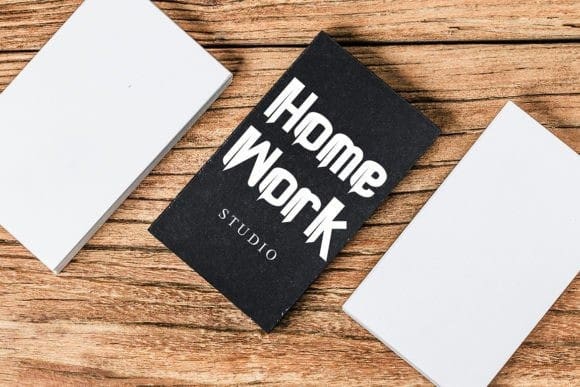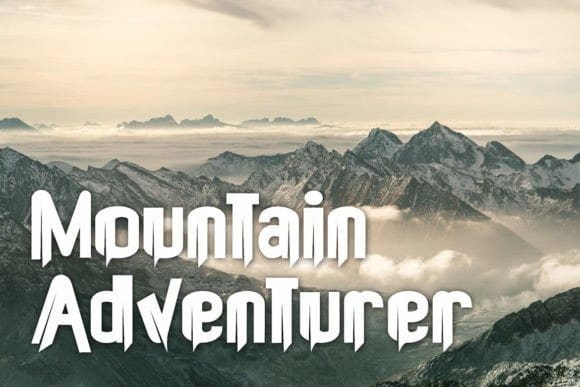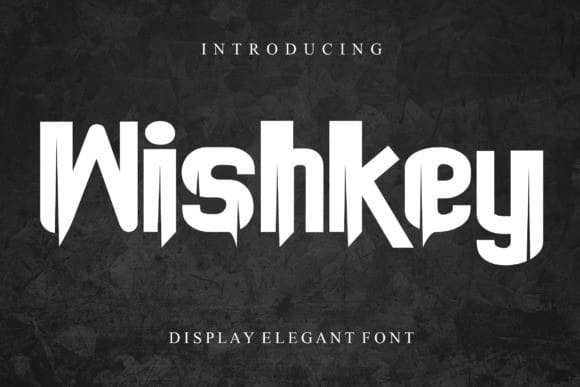
Wishkey Display Font
Wishkey Display Font is perfect for designs that aim to convey a creative, bold and personal touch. Using them can give your designs a more dynamic and cool look which is perfect for a variety of design projects. These characteristics make it an ideal choice for a wide variety of designs, including logos, posters, greeting cards, labels and t-shirt mockups. It can be used across a variety of media, both print and digital, which makes it very flexible.